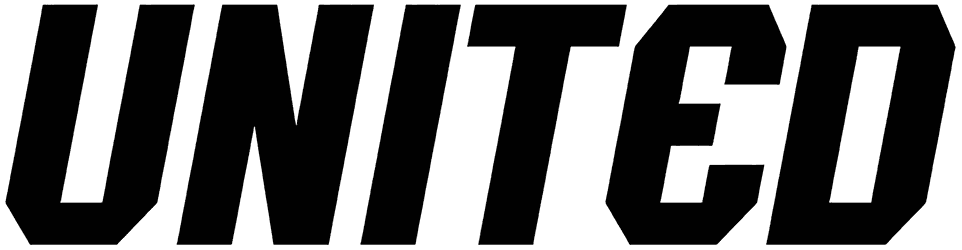
United Font
When you put the italic characters of United up to something, you can rest assured that you’ll get results. After all, it’s designed so boldly that this college font is bound to be at the center of attention everywhere and all the time.
You can totally count on it as a modern font for your basketball posters, racing video games, sports team logos, etc. By the looks of it, United can do all, except for projects that need lowercase or numbers.